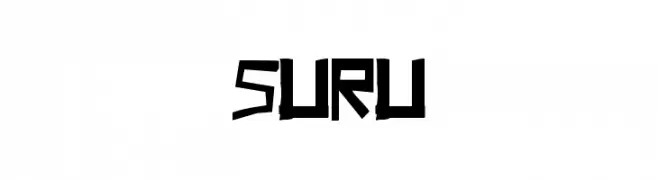
( Kate Matheson - adifficultwoman.com )
A playful, bold font with rounded edges and a hand-drawn appearance.
( Ko Sliggers - www.dutchfonts.com )
A bold, sketch-like font with a playful, hand-drawn style.
( Mahdi Salah )
A bold, rugged font with a hand-drawn, graffiti-like style.
( Matt Bruinooge )
A sketch-like, hand-drawn font with dynamic, textured strokes.
( MeCreativa - Michela Ferretti - www.mecreativa.com )
Whimsical cupcake-themed decorative font with hand-drawn charm.
( Muammar Khalid - creativemarket.com/kang1993 )
A playful, hand-drawn font with bold, uneven strokes and a lively aesthetic.
( Måns Grebäck - www.mansgreback.com )
A bold, cursive script font with a playful and energetic style.
( Noe Araujo - noearaujo.com/ )
A tall, narrow, hand-drawn font with a unique, artistic style.
( Peax Webdesign - www.peax-webdesign.com/goodies.html )
Hand-drawn, whimsical food and kitchen icon set.
( RAW inc - www.hearusraw.com )
A bold, cursive font with a playful and dynamic handwritten style.